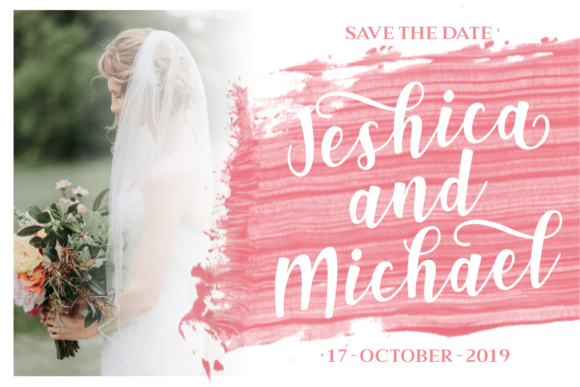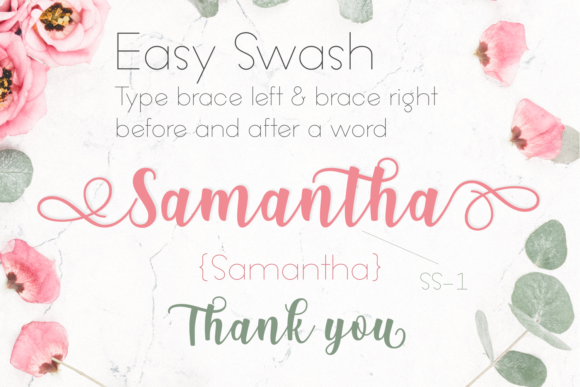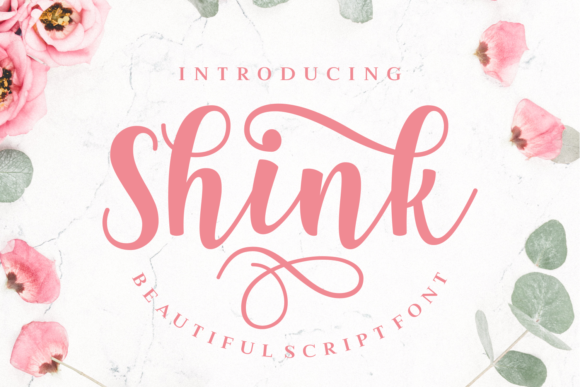
Introduction to Shink Font
Shink is a beautiful script font which is full of swirly alternates.
Shink will add a sexy, feminine look to your designs in an instant Because Shink is very legible, it can be used for both personal projects as well as business orientated designs.